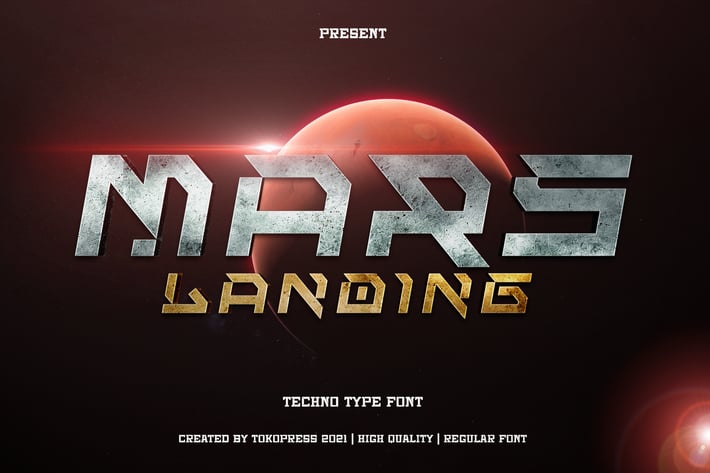
Mars Landing - Futuristic Techno font
Mars Landing - Future Techno Font
Mars Landing is a futuristic techno typeface designed with angular terminals, modular spacing, and sharp geometric forms that instantly signal innovation. Its bold and structured aesthetic fuses retro sci-fi charm with modern edge, making it perfect for attention-grabbing visuals. With a visual identity that balances digital clarity and space-inspired personality, this font feels right at home in gaming interfaces, tech startups, and event promotions. Every letterform feels constructed and intentional—expressive yet streamlined.
Whether you're designing a sci-fi movie poster, VR landing page, e-sports logo, or digital product packaging, Mars Landing brings a bold, futuristic tone that commands attention. Its heavy structure and dynamic rhythm help create impactful headlines, game title sequences, or even youth-focused sneaker branding. This is a display font that resonates with forward-thinking creatives who want to build a modern, high-energy identity that feels both experimental and professional.
Key Features :
✅ Built for Bold Display Typography
- Ideal for large-scale use: posters, logos, UI titles, cover art
- Sharp geometry delivers strong visual hierarchy and futuristic tone
✅ Designed for Sci-Fi and Tech
- Perfect for gaming, streaming overlays, startup decks, tech packaging
- Retro-futuristic cues enhance genre appeal and brand distinction
✅ Functional & Aesthetic Balance
- Modular spacing ensures legibility while maintaining character
- Great for designers who value structure without sacrificing style